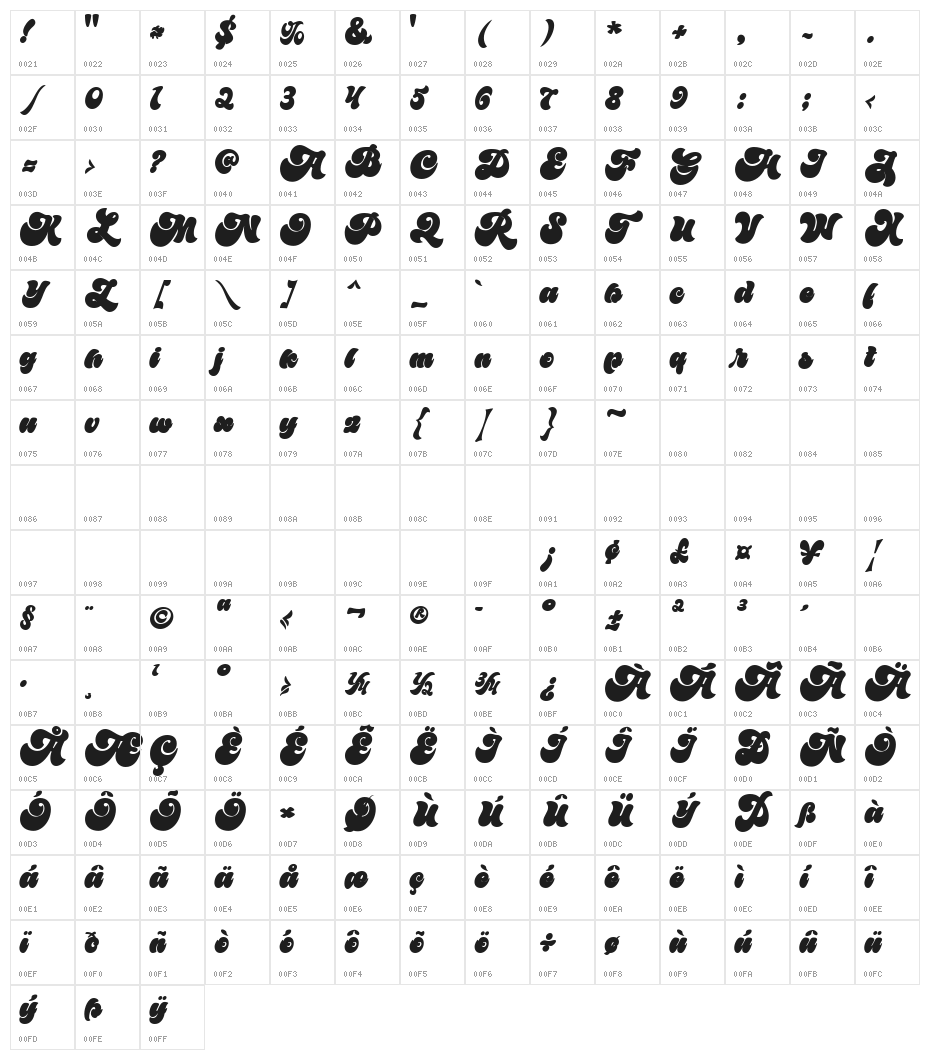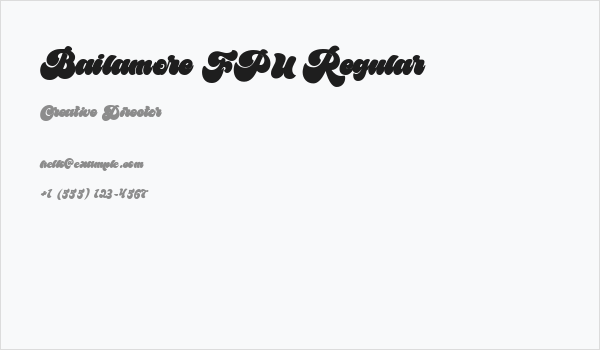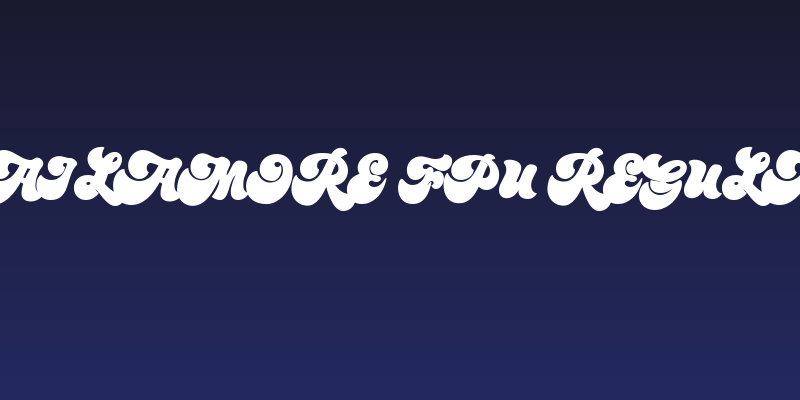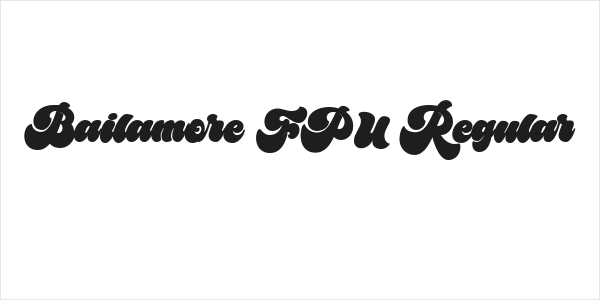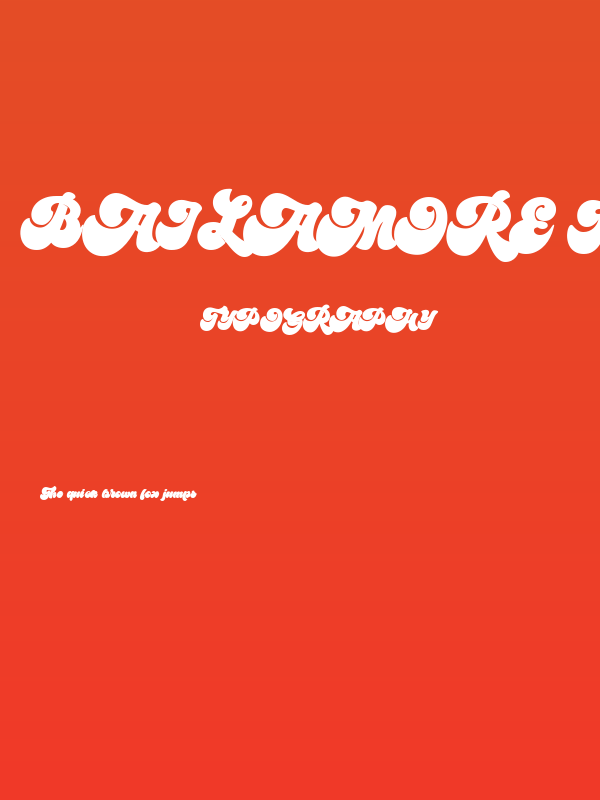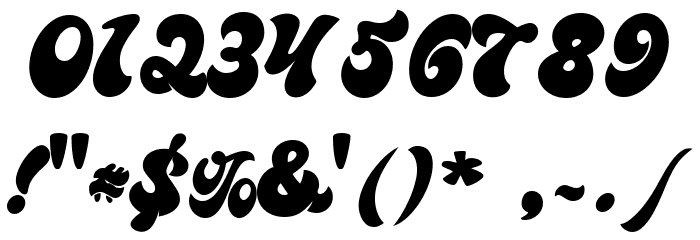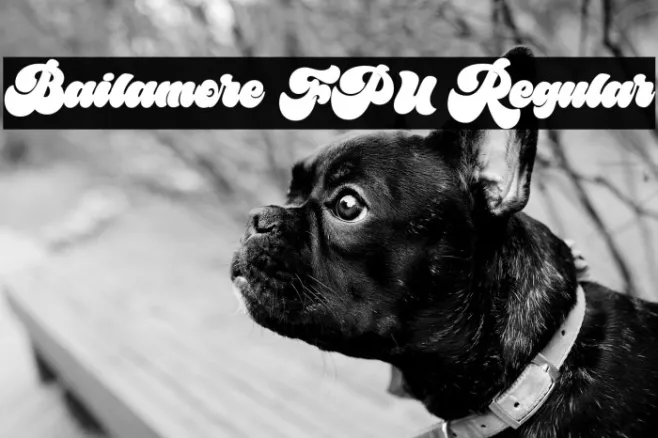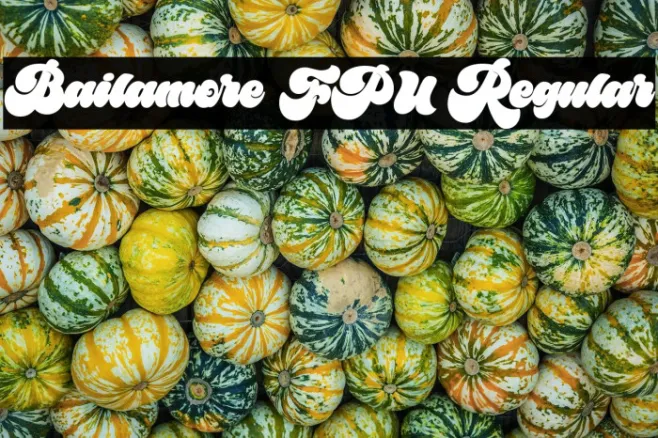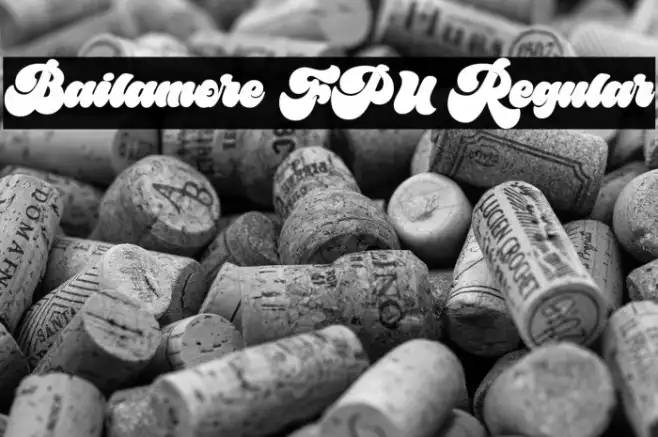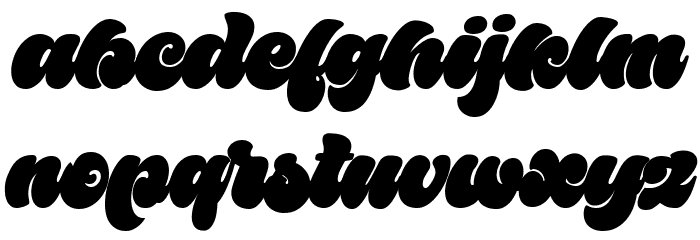
Bailamore FPU Regular Font
Bailamore FPU Regular Description
This font features a bold and playful design with thick, rounded strokes that create a sense of movement and energy. The characters are closely spaced, enhancing the boldness and making it ideal for eye-catching designs. The uppercase and lowercase letters maintain a consistent style, with smooth curves and a slightly whimsical appearance. The numbers and special characters follow the same design principles, ensuring uniformity across all glyphs. This font's distinctive style makes it suitable for projects that require a fun and dynamic look.
| Overall Style | Playful, Energetic, Whimsical |
| Proposed Projects | Ideal for branding, posters, children's books, and playful graphic designs. |